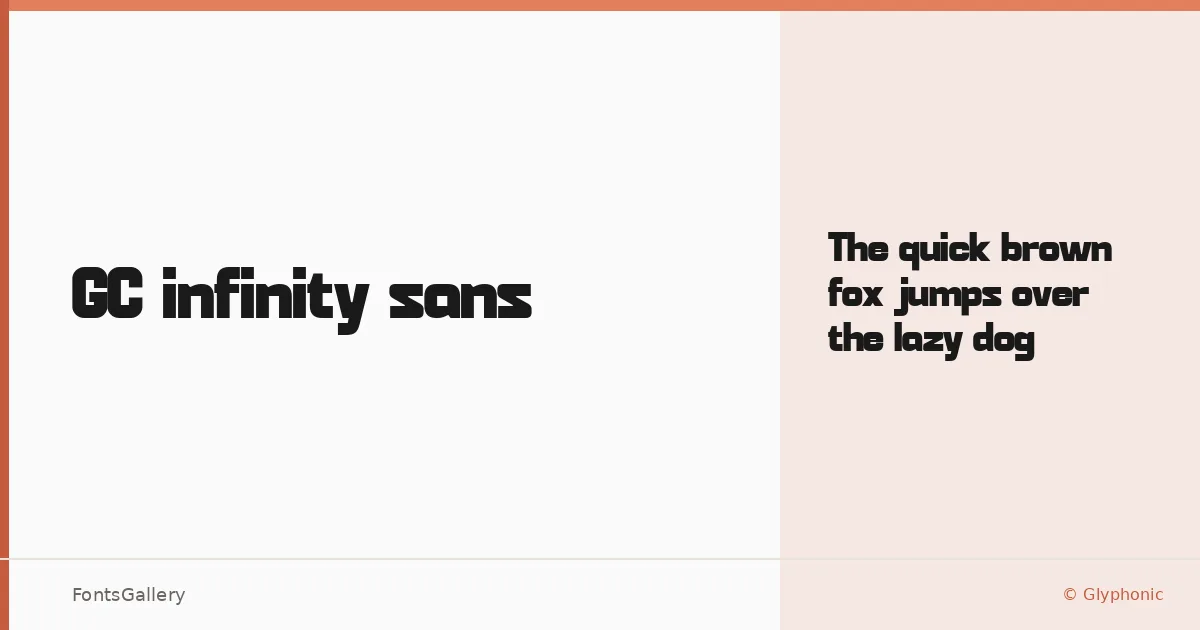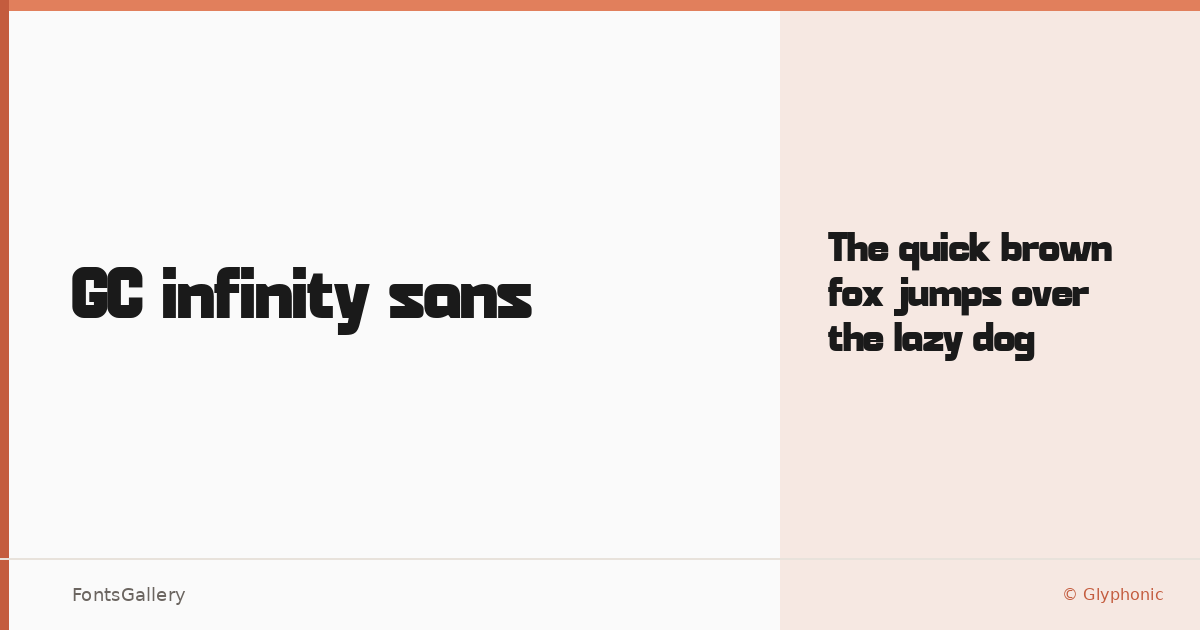
About GC infinity sans Font
There is a weight to this display face that announces itself immediately — a single Black cut designed to dominate whatever surface it lands on. Created by Dwi Indah Fadhilatul Amanah of Glyphonic, the family arrives in TTF format as a demo release, built around that one heavyweight extreme where the letterforms carry maximum presence and zero hesitation.
This is a display sans in the boldest register of the spectrum, and it wears that identity without apology. The mood sits squarely at the intersection of futuristic and modern — forms that feel engineered rather than drawn, with the kind of geometric confidence that reads clearly at large scale. The single Black style is exactly that: a maximum-weight cut with no lighter companions, which means every application needs to lean into the density rather than fight it.
The face earns its place in headline work, poster layouts, brand marks, logos, and T-shirt design — anywhere the typography needs to carry visual weight before a single word is read. For contrast-driven layouts, it pairs well against the refined neutrality of Helvetica or Aileron, the editorial softness of Canela or Anglecia Pro, and the structured geometry of Abrade.